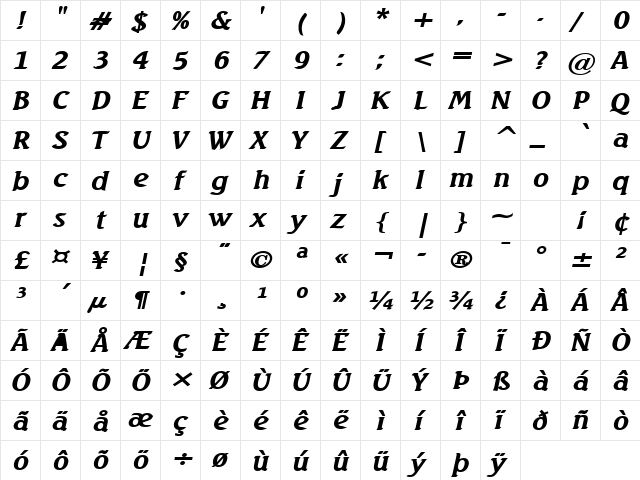
Beach-Extended Bold Italic Font Preview
Design Context for Beach-Extended Typeface
Beach-Extended is a composed and adaptable typeface that performs quietly and consistently across a wide range of design contexts. Its italic angle brings a sense of urgency and motion to the letterforms. The heavy weight commands attention and anchors typographic hierarchies.
Pro Tip: Try Beach-Extended for annotation and caption copy alongside an upright companion — the contrast in angle creates a dynamic but ordered typographic system.